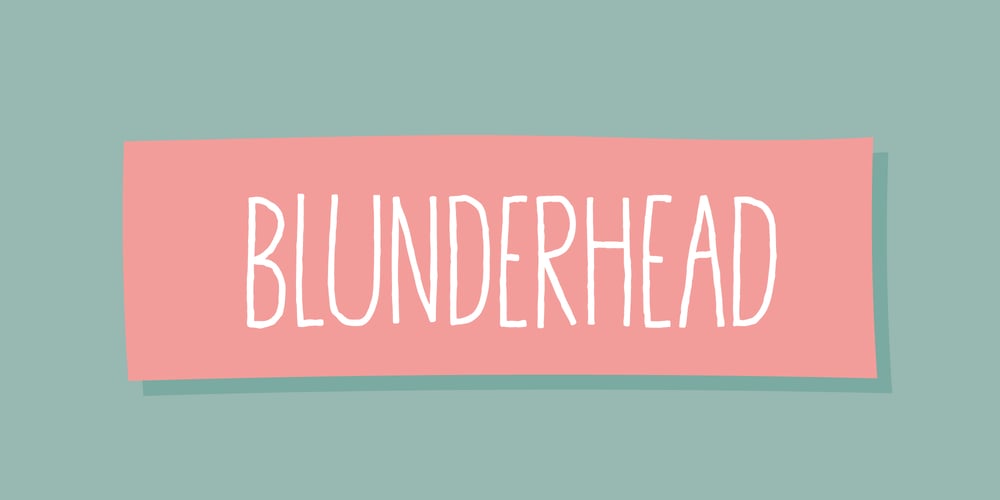
Blunderhead Font Family was designed by Jakob Fischer and published by PizzaDude.dk. Blunderhead contains 2 styles and family package options. Sometimes you need your message sent out in a clear and legible way. Maybe you will need a handmade and organic look as well.Blunderhead is handmade and then carefully digitally remastered, however the original organic look and feel is kept. Furthermore I have made 7 different versions of each letter from which you can pick your favourites, or just type ahead and let the font randomly choose – making your text look even more organic and lively!